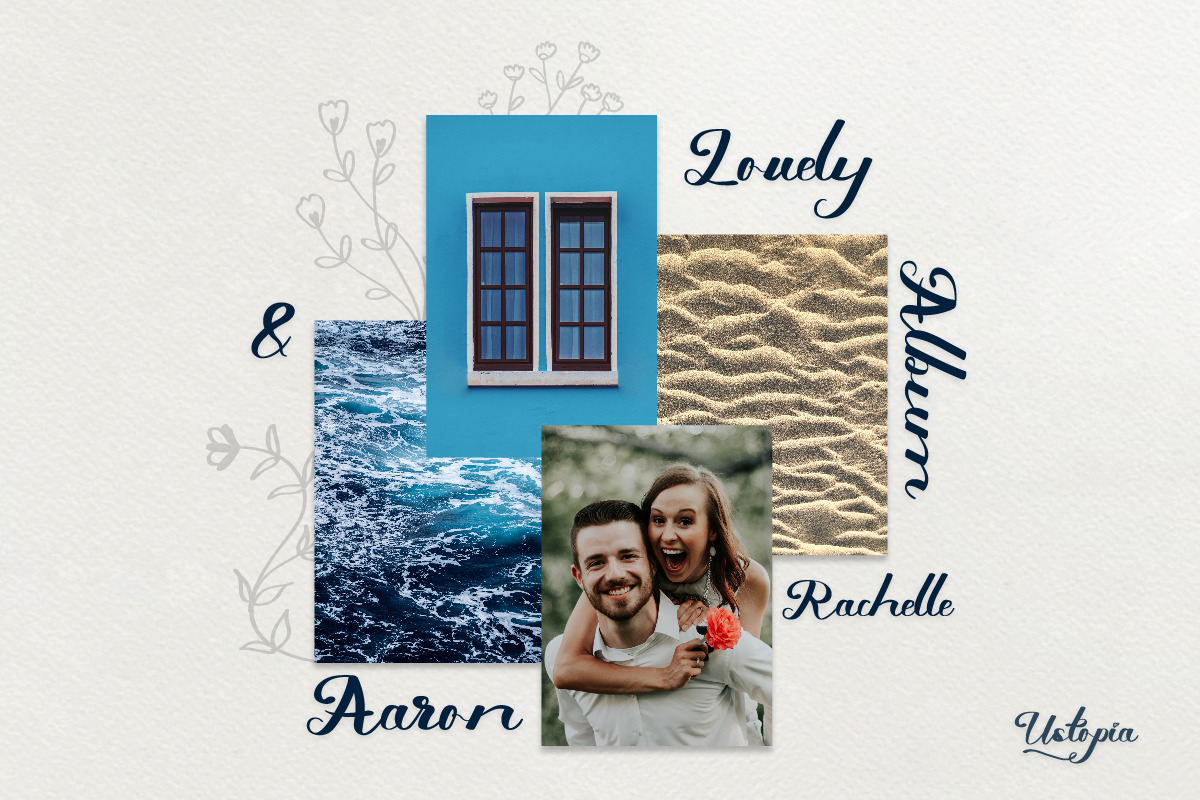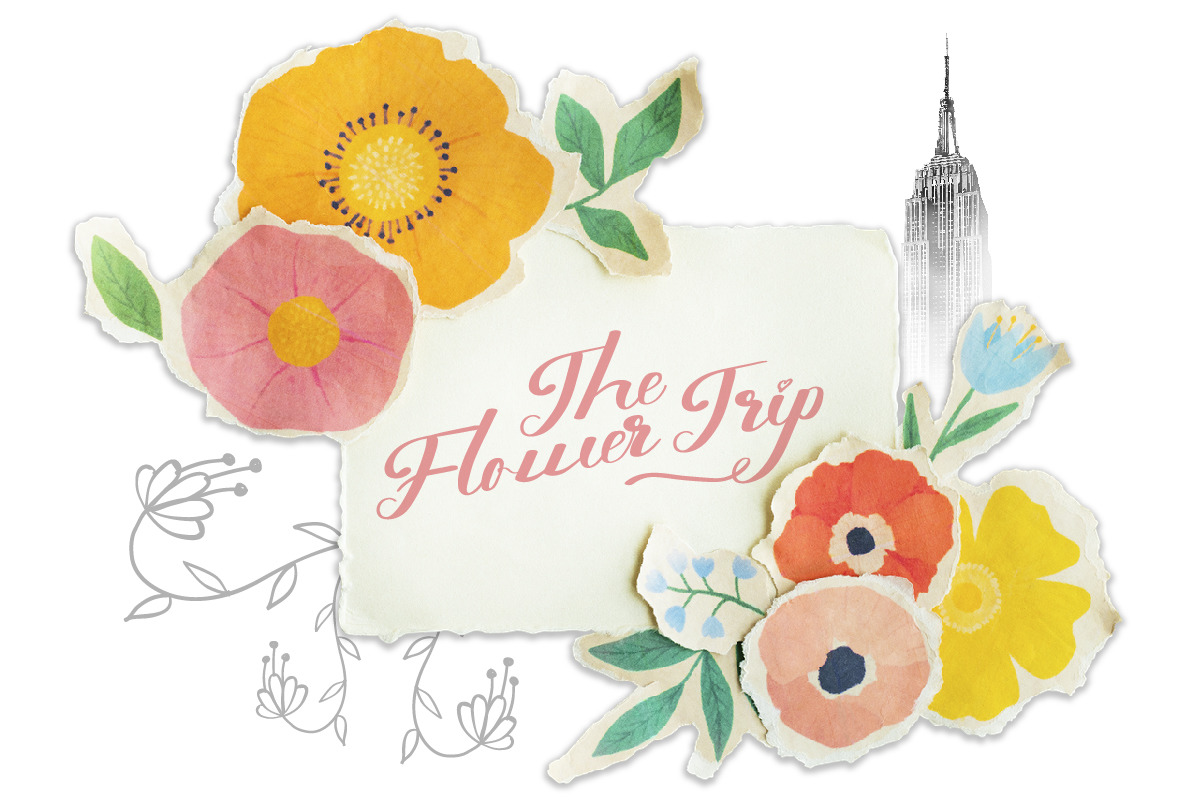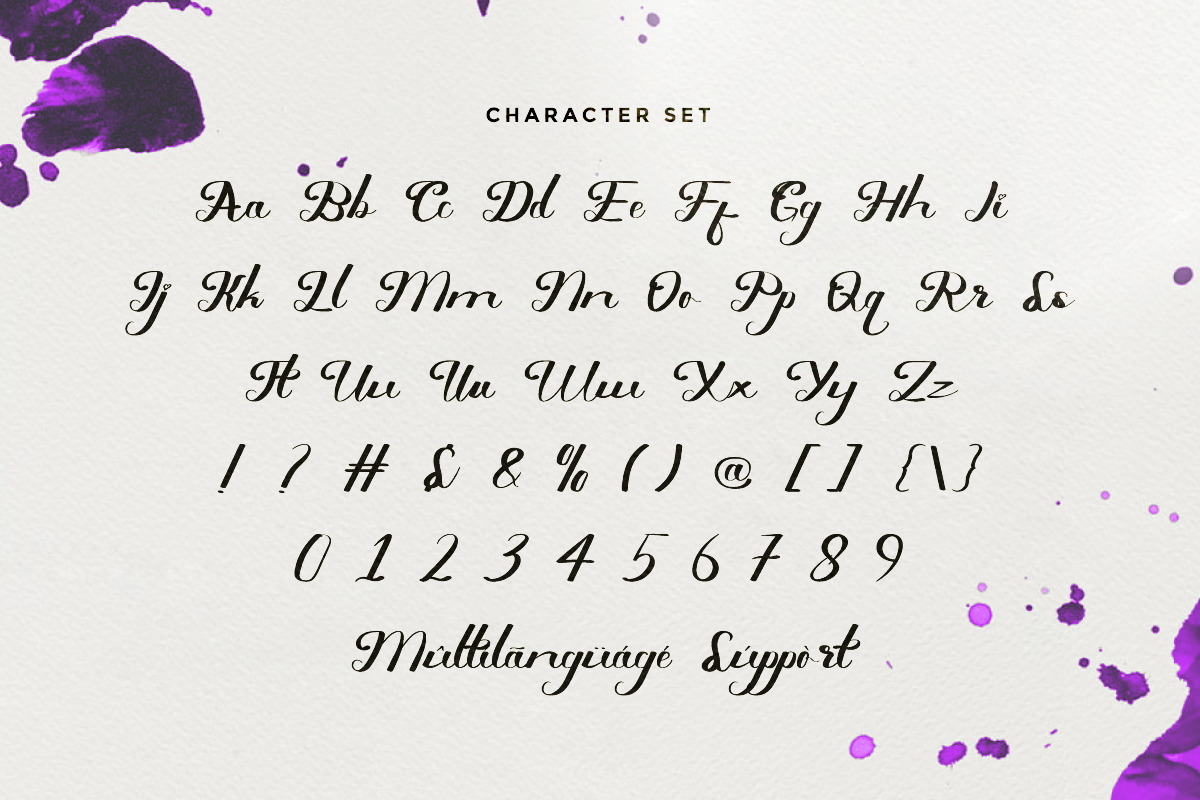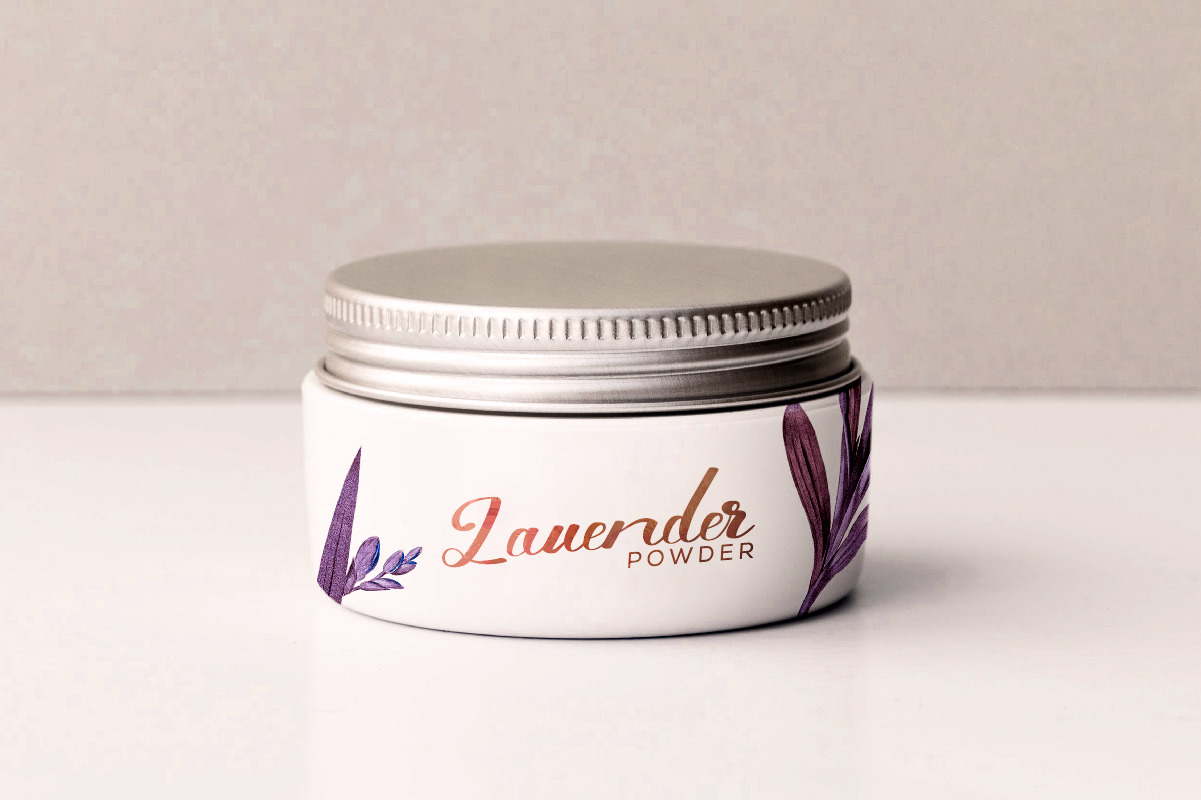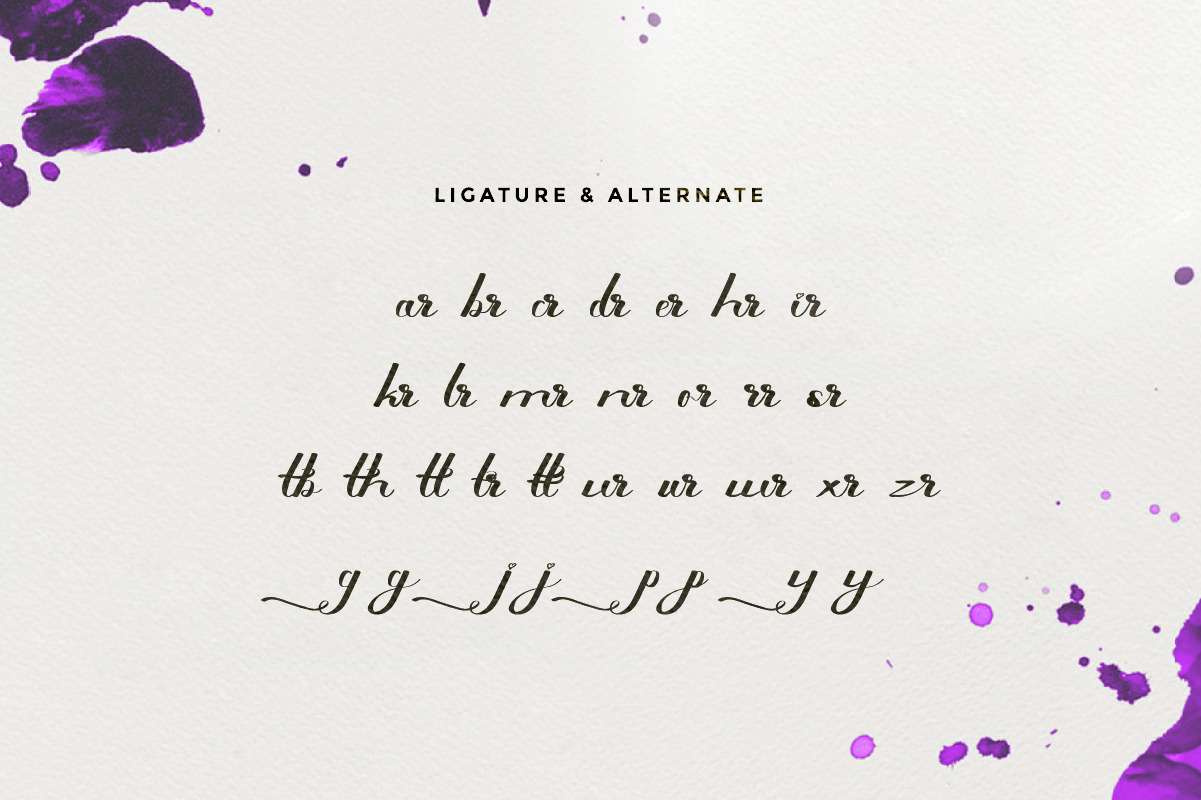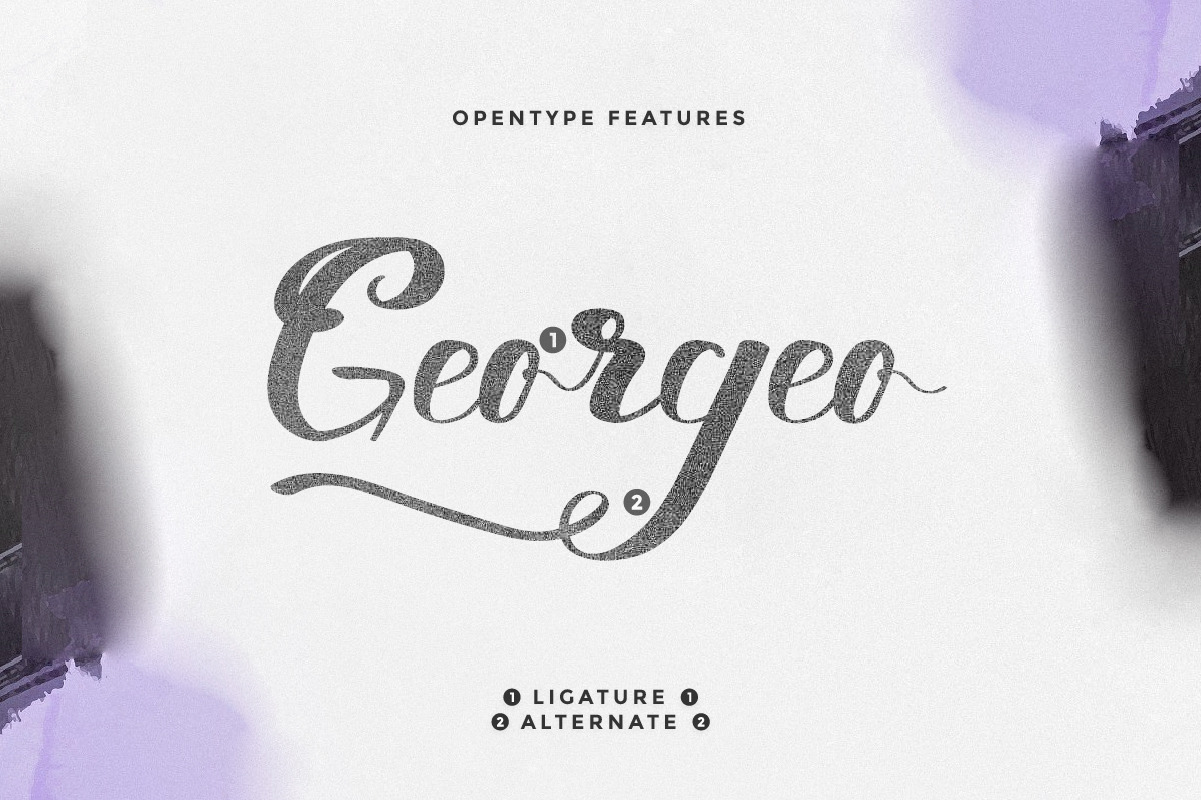
Ustopia Brush Display Font
Ustopia is a original beautiful script font with calligraphy handwriting style. Great for weddings, promotion, events, branding, advertising, magazine, shopping, signage, invitation, stationery, social media posts, product packaging, product designs, label, photography, watermark or and any projects that need calligraphy handwriting style.